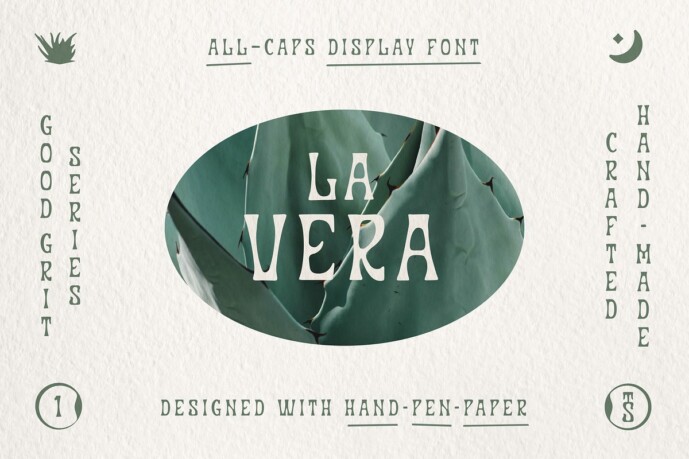
La Vera Font
La Vera – “The True One.”
La Vera Display font is a hand-drawn, all-caps display font. It’s groovy, quirky, and strives to be the fun one in the room. Inspired by the natural forms of the aloe vera plant, there’s an abundance of weight contrast within the letterforms.
La Vera is a great foundation for…
Posters, social media artwork, T-shirt graphics, merchandise, logos, and anywhere a groovy, fun, crafty punch is needed!
Perfectly Imperfect
The font was completely created by hand, meaning each letter is unique and different from one another – subtle rough edges and slight imperfections make La Vera a creatively crafty font.